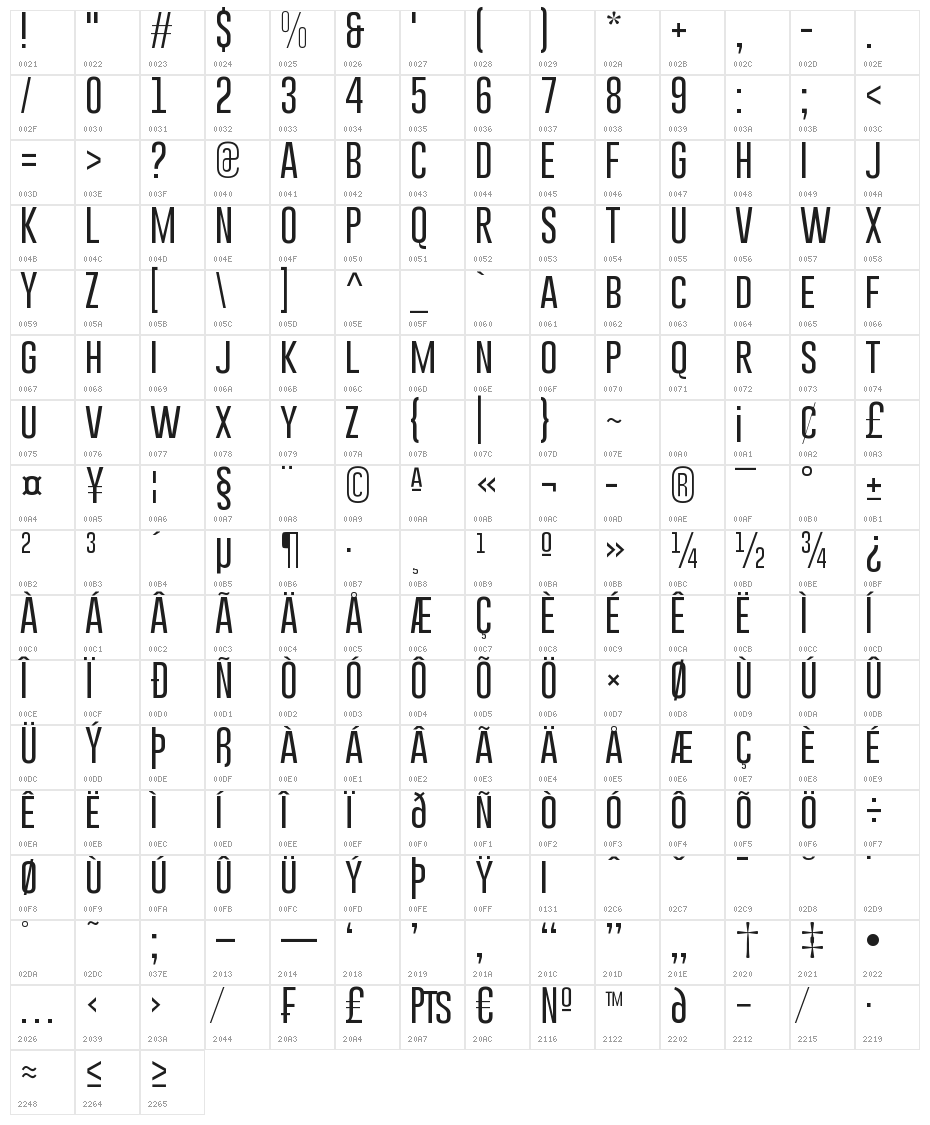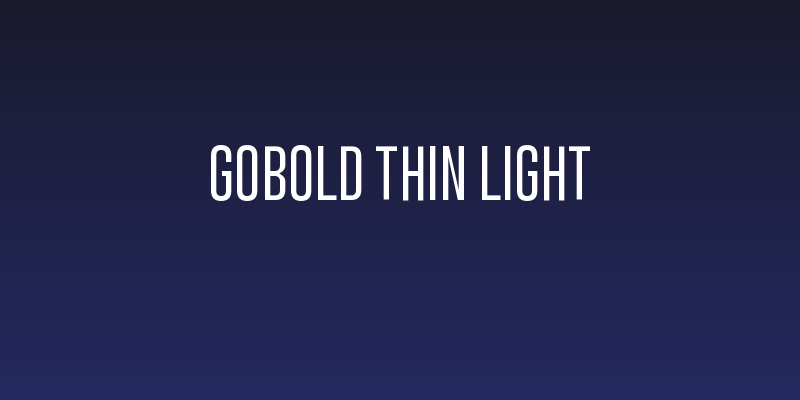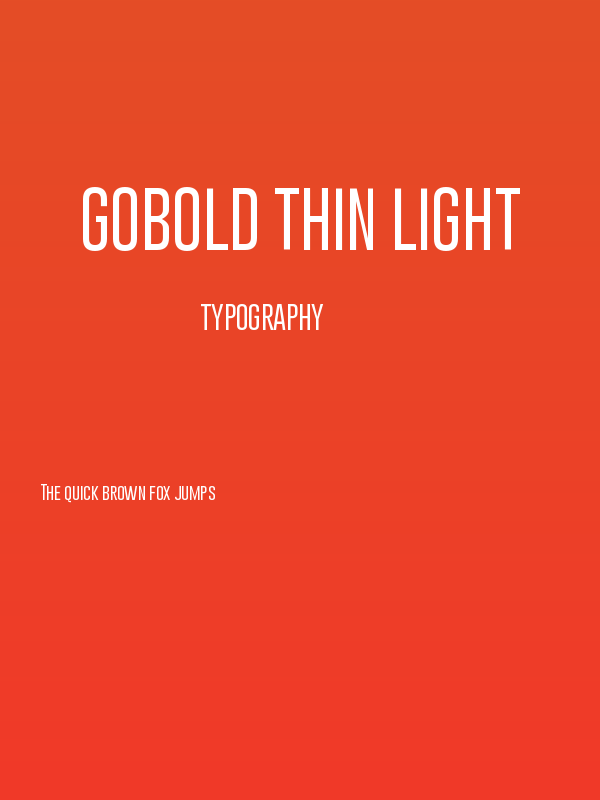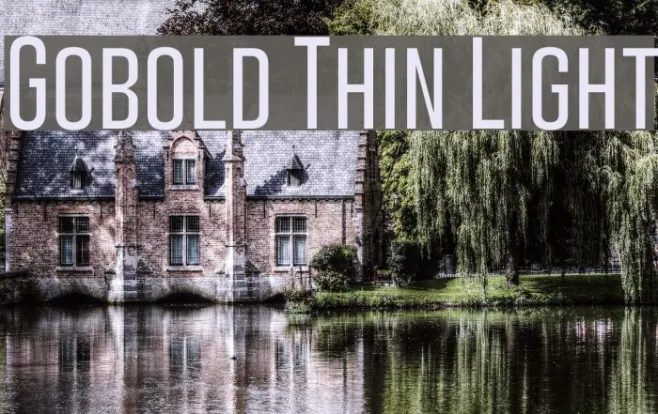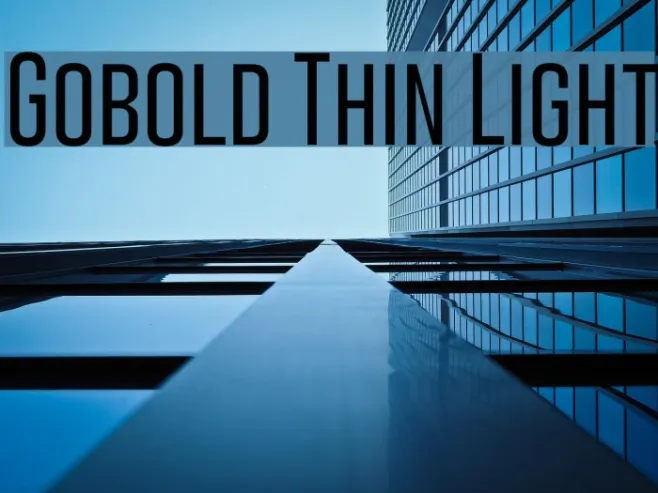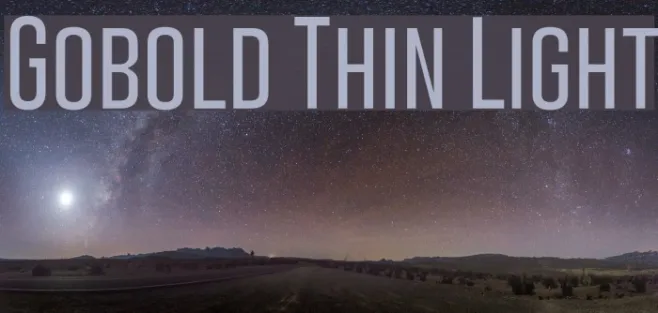
Gobold Thin Light Font
Gobold Thin Light Description
This typeface features a sleek and modern design, characterized by its tall and narrow letterforms. The strokes are uniform in thickness, giving it a clean and minimalistic appearance. The uppercase and lowercase letters are well-proportioned, with a slight geometric influence that enhances readability. The numerals are distinct and align well with the overall style, while the special characters maintain consistency with the font's aesthetic. Its simplicity and elegance make it versatile for various design applications.
| Use Case | Headlines, Logos, Digital interfaces |
| Proposed Projects | Ideal for branding, advertising, headlines, and digital interfaces where a modern and clean look is desired. |